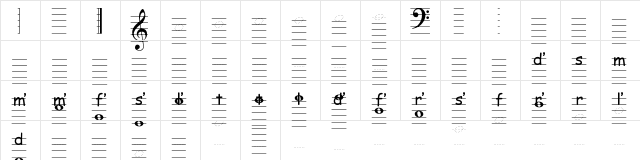
Kod?ly Regular
Design Context for Kod?ly Typeface
Kod?ly is a composed and adaptable typeface that performs quietly and consistently across a wide range of design contexts.